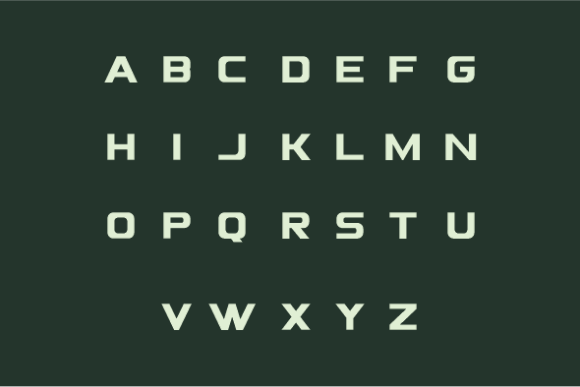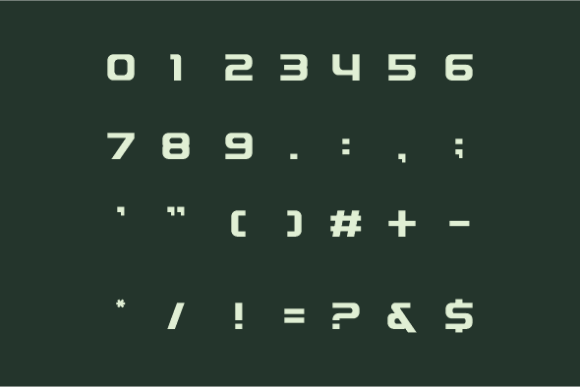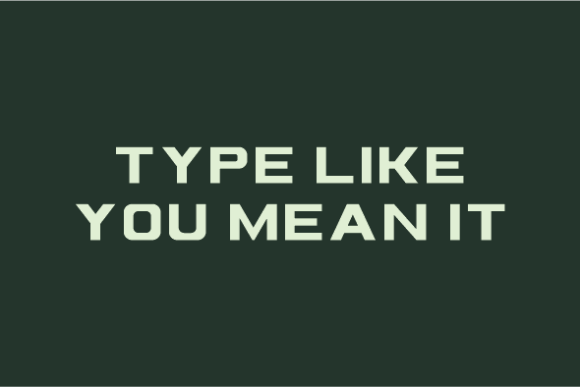
Bundey Font: A Sharp and Bold Typeface for the Future
In the world of typography, a new font has emerged that’s making waves among designers and crafters. Say hello to Bundey, a sharp, display typeface built for the future. With its bold and commanding structure, Bundey is the perfect choice for posters, logos, branding, and digital interfaces.
The Design of Bundey
Bundey is a carefully crafted font that’s designed to make a statement. Its sharp lines and bold structure give it a unique and edgy look that’s sure to grab attention. The font’s design is inspired by modern typography, with clean lines, geometric shapes, and a futuristic feel. Whether you’re looking to create a bold logo, a striking poster, or a professional brand identity, Bundey has got you covered.
Key Features of Bundey
- Sharp and Bold Structure: Bundey’s sharp lines and bold structure make it perfect for creating eye-catching designs that demand attention.
- Geometric Shapes: The font’s geometric shapes give it a modern and futuristic feel that’s perfect for digital interfaces and modern branding.
- Clean Lines: Bundey’s clean lines make it easy to read and versatile enough to use in a variety of design applications.
- Commanding Presence: Bundey brings a bold and commanding presence to any layout, making it perfect for posters, logos, and branding.
Use Cases for Bundey
Bundey is a versatile font that can be used in a variety of design applications. Here are some use cases where Bundey shines:
- Posters and Flyers: Bundey’s bold and commanding presence makes it perfect for creating eye-catching posters and flyers.
- Logos and Branding: Bundey’s unique and edgy design makes it perfect for creating bold and memorable logos and brand identities.
- Digital Interfaces: Bundey’s clean lines and geometric shapes make it perfect for digital interfaces, such as mobile apps, websites, and video games.
Why Choose Bundey?
With so many fonts available, why choose Bundey? Here are some reasons why Bundey stands out from the crowd:
- Unique Design: Bundey’s unique and edgy design makes it stand out from other fonts.
- Versatility: Bundey can be used in a variety of design applications, from posters and logos to digital interfaces.
- Modern Feel: Bundey’s modern and futuristic feel makes it perfect for brands and designers who want to create a bold and forward-thinking identity.
In conclusion, Bundey is a sharp and bold typeface that’s perfect for designers and crafters who want to create eye-catching designs that demand attention. With its unique design, versatility, and modern feel, Bundey is the perfect choice for posters, logos, branding, and digital interfaces. Whether you’re a seasoned designer or just starting out, Bundey is a font that’s sure to elevate your designs to the next level.